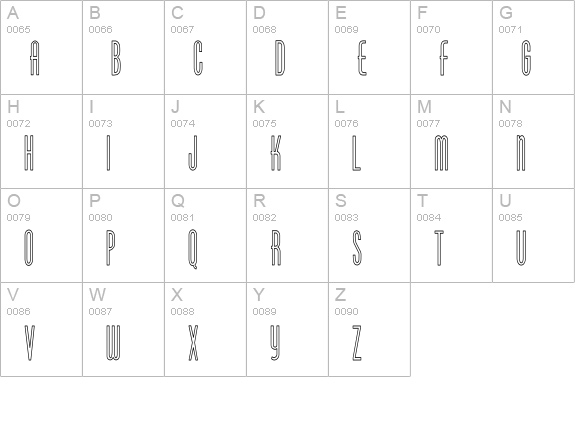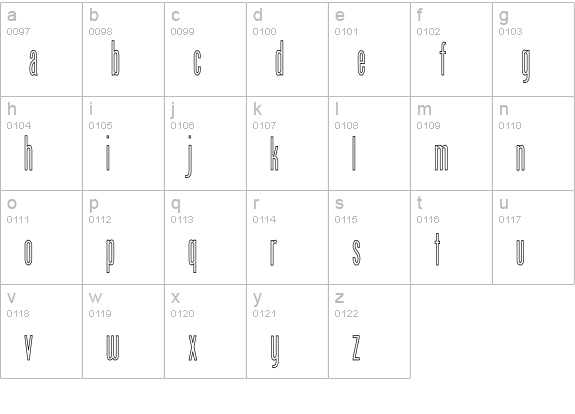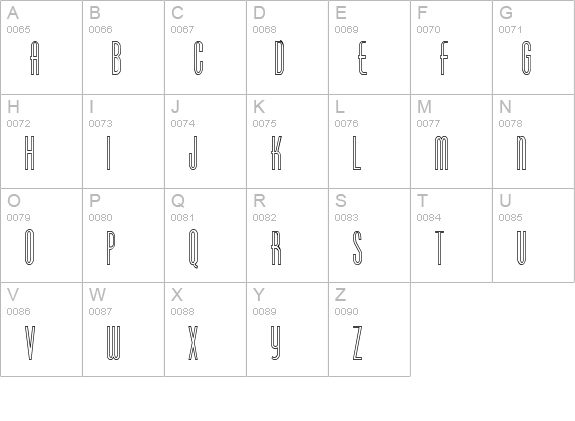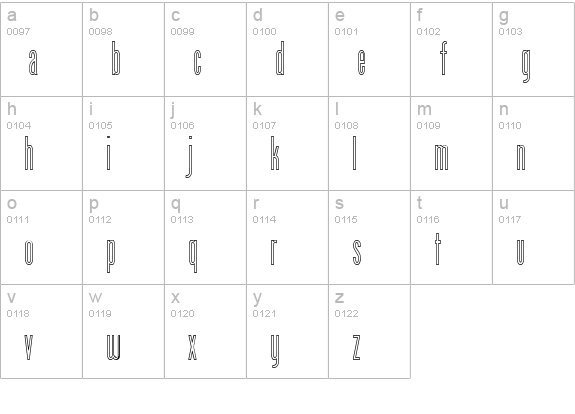
PhoenixHC Font Details
Introducing PhoenixHC, a stunningly elegant and versatile font that will bring a touch of sophistication to any project. With its graceful curves and refined lines, PhoenixHC captures the essence of timeless beauty and modern design. This font is perfect for both professional and creative endeavors, whether you're designing a logo, creating a website, or crafting a memorable invitation. But what truly sets PhoenixHC apart is that it is not only visually captivating, but it is also free! That's right, this exceptional font is freely available to download at FontsMarket.com. Now you can enhance your projects with this remarkable typeface without any additional cost. With its wide range of weights and styles, PhoenixHC offers endless possibilities for customization. From bold and impactful headlines to delicate and elegant body text, this font adapts effortlessly to suit your needs. Its versatility ensures that your message will be conveyed with clarity and sophistication. The attention to detail in PhoenixHC is truly remarkable. Each letter is meticulously crafted to create a harmonious blend of beauty and legibility. The subtle curves and precise spacing create a balanced composition, ensuring that your text will always be a pleasure to read. Whether you're a professional designer or a creative enthusiast, PhoenixHC is a must-have addition to your font collection. Its timeless elegance and effortless versatility make it the perfect choice for any project. And with its availability as a free download on FontsMarket.com, there's no reason not to add PhoenixHC to your design toolbox today. Discover the beauty of this exceptional font and elevate your creations to new heights.